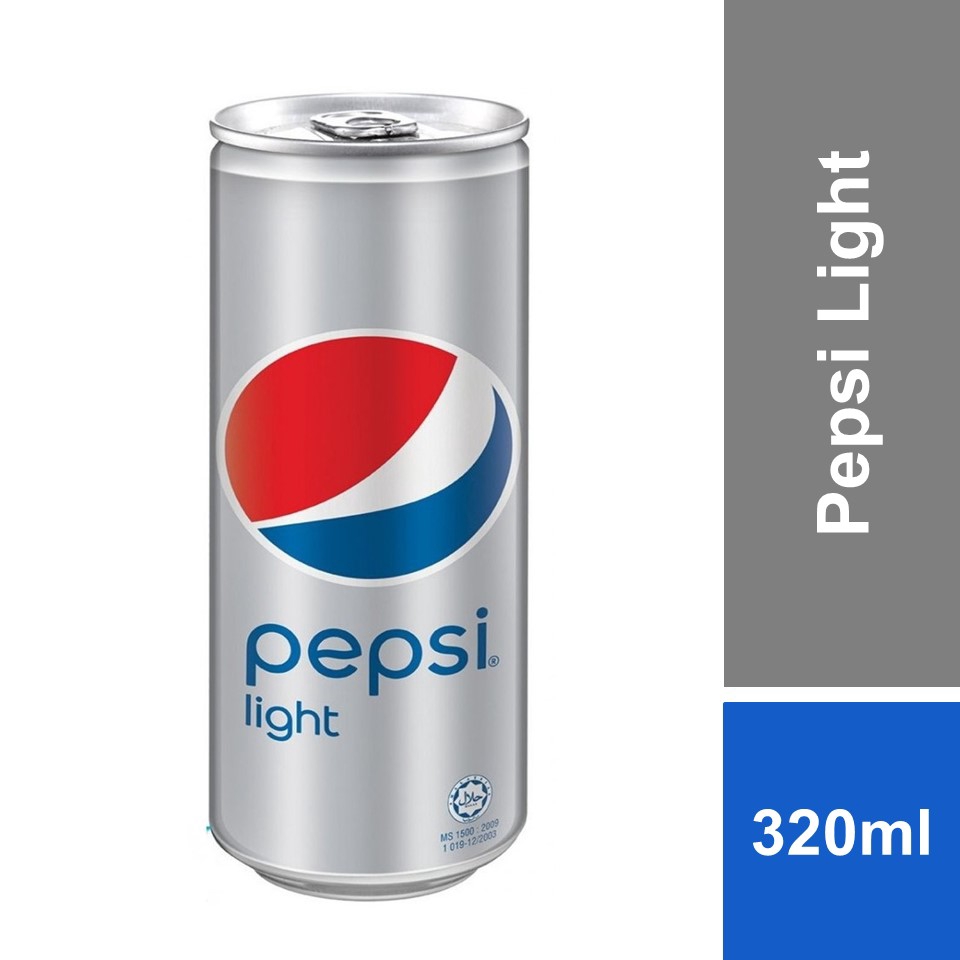
Pepsi Light Font
Hi, Does anybody know what 2 fonts were used to create this logo OR something close to them?.
Pepsi light font. UrbanFonts features an amazing collection of free fonts, premium fonts and free dingbats With over 8,000 freeware fonts, you've come to the best place to download fonts!. With red on the left and light blue on the right, white was reserved for the globe’s outline and the stripe across its middle that served as the background for the word “Pepsi” The font remained unchanged from the logo’s previous iteration, but shrank to fit inside the globe’s perimeter And it turned blue. Download and install the Pepsi font for free from FFontsnet ️ This font has been downloaded 3,000 times.
Font Custom text Size Submit reset Back!. The font used for Pepsi logo is Pepsi Light, which is a display sans serif font designed by Gerard Huerta. Click to find the best 4 free fonts in the Pepsi style Every font is free to download!.
In 1998, Pepsi celebrated its 100 years of existence Who designed the first Pepsi logo In 18, a pharmacy owner named Caleb Bradham invented and started to sell the socalled “Brad’s Drink” Kids Hoodie Here, the color blue is included to accentuate the attentiongrabbing red It was swiftly discontinued The 1940’s version of the Pepsi logo is great, and I wish they’d stuck with. This was inspired by a user named Special thanks to for helping me find the font for the logo Special thanks to for the Pepsi light and Pepsi fonts No, logo kids such as Lyrick, TLS, Jesse, etc will not get the link. Font Meme is a fonts & typography resource The "Fonts in Use" section features posts about fonts used in logos, films, TV shows, video games, books and more;.
AF PEPSI font by Abstract Fonts FontSpace Download the free AF PEPSI font by Abstract Fonts It is a decorative font created in 1999 and has been downloaded 39,444 times Pepsi Logo Font 1 2 #1 jhnri4 Zitat um 1357 Bearbeitet am um 1357 von jhnri4 Identifizierter Font Pepsi Light Vorgeschlagen von cavylover12. HighLogic Erwin Denissen Website TrueType Personal use PEPSI_plttf Download @fontface s Fancy Various Character map Please use the pulldown menu to view different character maps contained in this font Pages Basic font information. Pepsi Cola Beverage Advertising 14K Gold Plated Impact Lighter USA PageScrappers From shop PageScrappers 5 out of 5 stars (3,017) 3,017 reviews $ 5000 Favorite Add to Vintage Working Cigarette Lighter with Logo AlwaysPlanBVintage From shop AlwaysPlanBVintage 5 out.
Search results for pepsi light font, free downloads of pepsi light fonts at Fonts101com. The font used for Pepsi logo is Pepsi Light, which is a display sans serif font designed by Gerard Huerta. Pepsi light Free Download Collections All FONT Handwriting Art Festival Pattern Refining Freshness Any time Past 3 months Past month Past week Past 3 days colour post reset Pepsi The following upgrade cost schedule is calculated based on multiples of the original list price of each font or family6 to 25 CPUs.